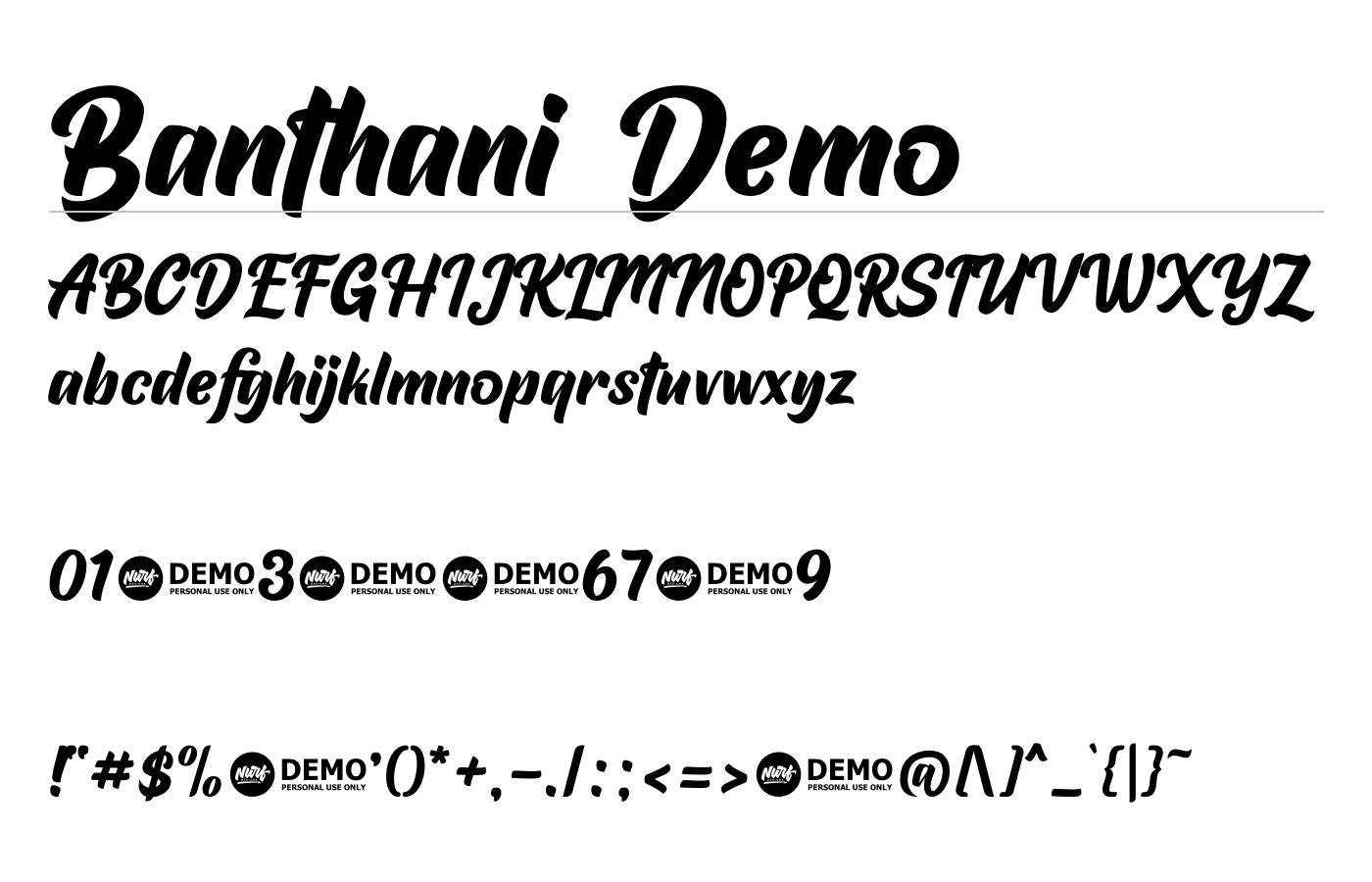
Banthani Demo is a bold, brush-script font that combines a lively, hand-painted feel with a clean and modern style. Its smooth, rounded strokes and medium contrast create an energetic yet approachable look, making it perfect for branding, logos, and headlines that want to convey creativity and friendliness. This font works well in casual and artistic settings, adding warmth and personality to various design projects.
Banthani Demo Font
About Banthani Demo Font